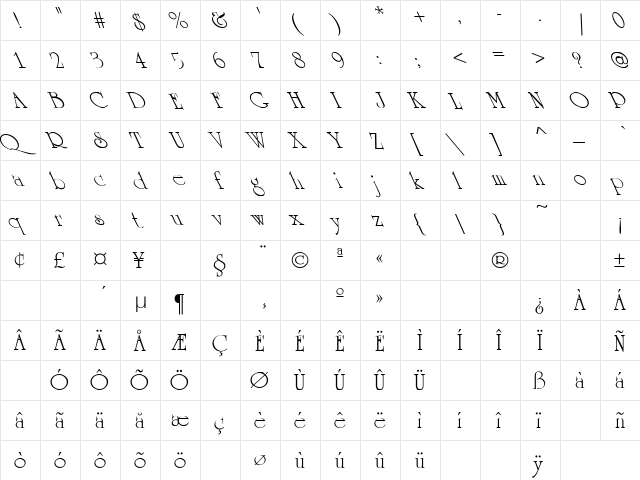
University Extreme Leftis Regular
Design Context for University Extreme Leftis Typeface
University Extreme Leftis takes a measured approach to typography — its balanced proportions and neutral character make it a reliable workhorse for both digital and print work.